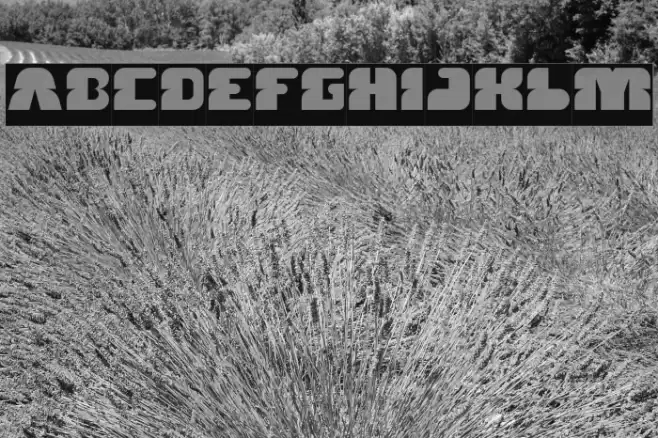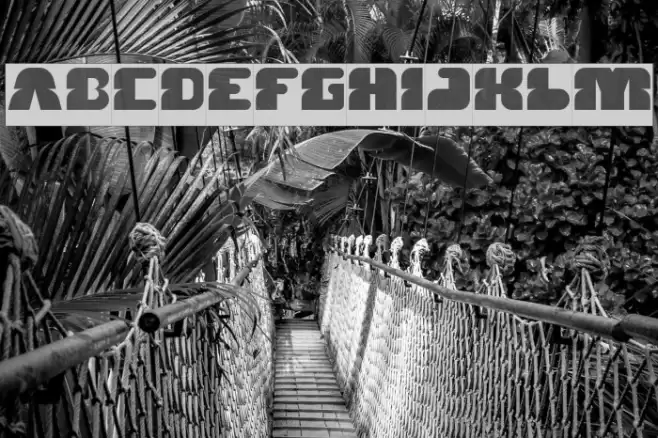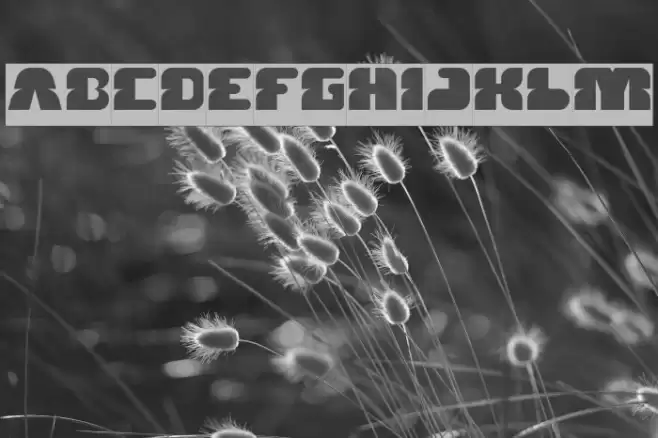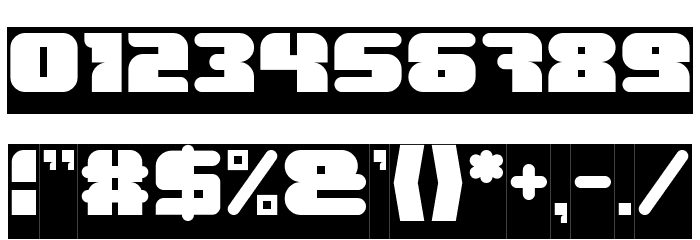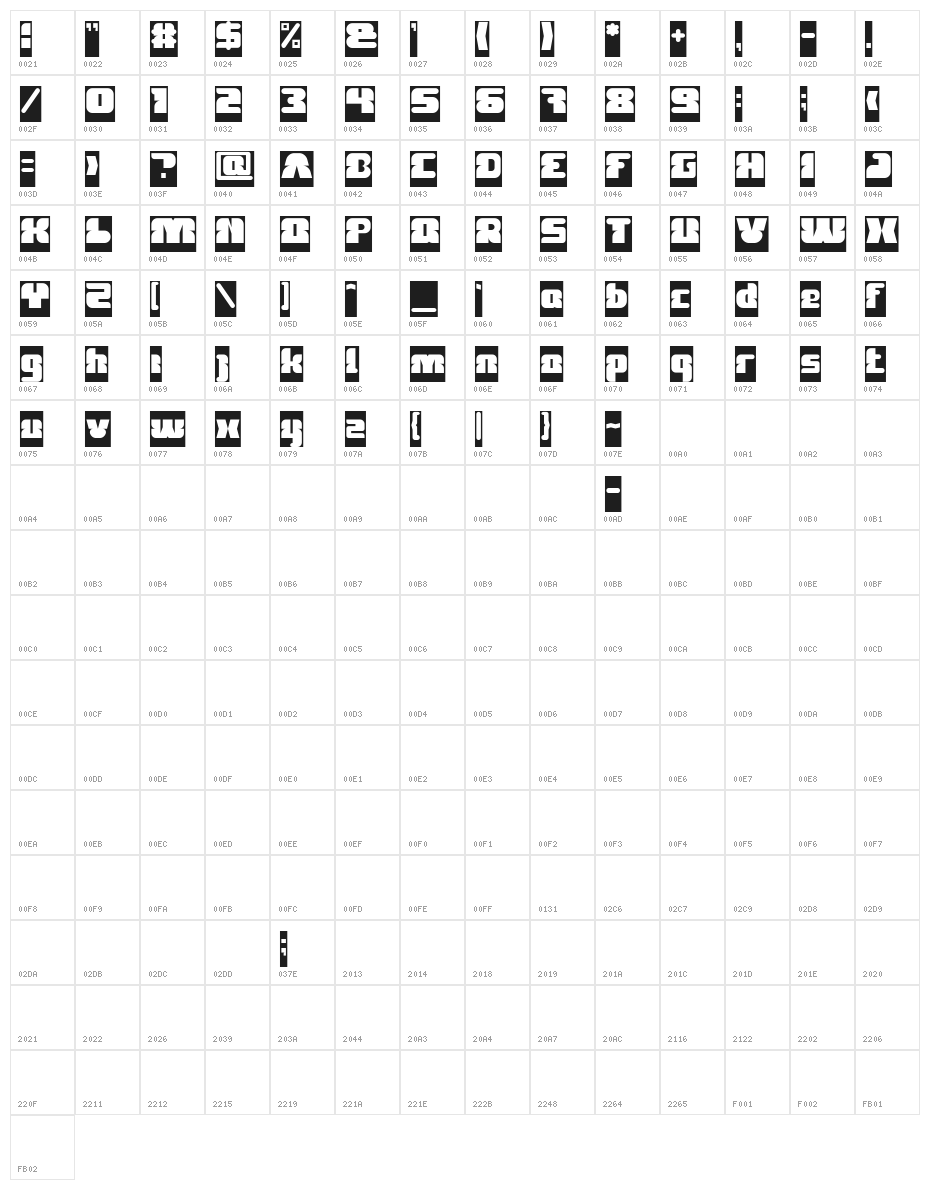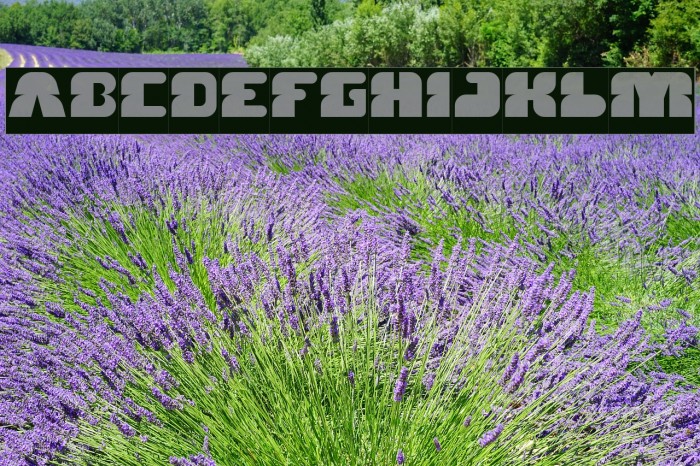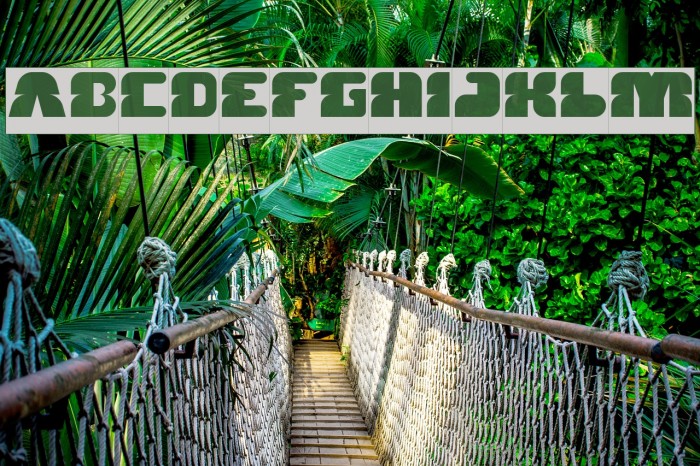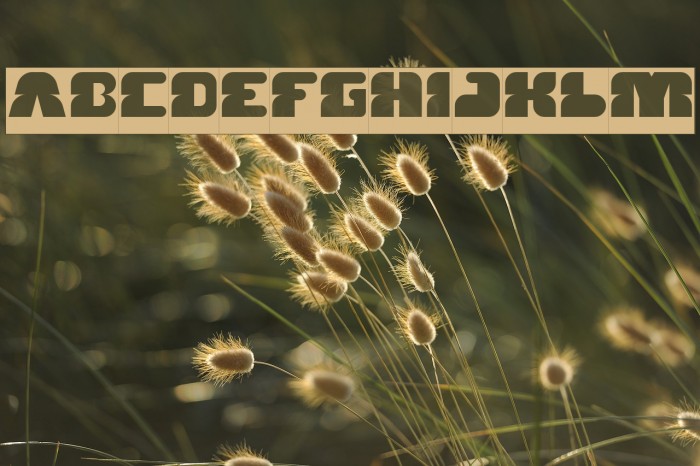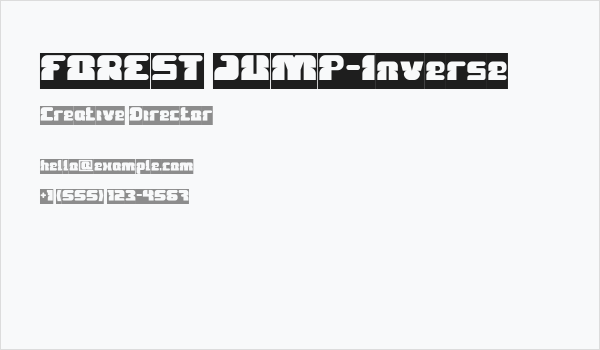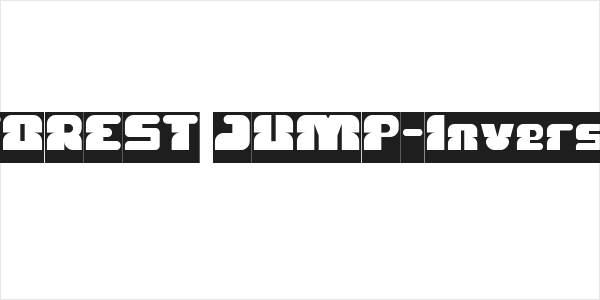
FOREST JUMP-Inverse Font
FOREST JUMP-Inverse Description
This font features a bold and striking design with a unique inverse style, where the characters are filled with white against a solid black background. The letters are blocky and geometric, with rounded edges that add a playful touch. The uppercase and lowercase letters maintain a consistent style, with the lowercase being slightly more compact. Numbers and special characters follow the same bold and distinctive pattern, ensuring uniformity across all glyphs. The overall appearance is modern and eye-catching, making it suitable for attention-grabbing designs.
A bold, inverse-style font with geometric, rounded characters from Uncategorized fonts.
- Proposed Projects: Ideal for posters, headlines, branding, and any project requiring a bold, modern aesthetic.